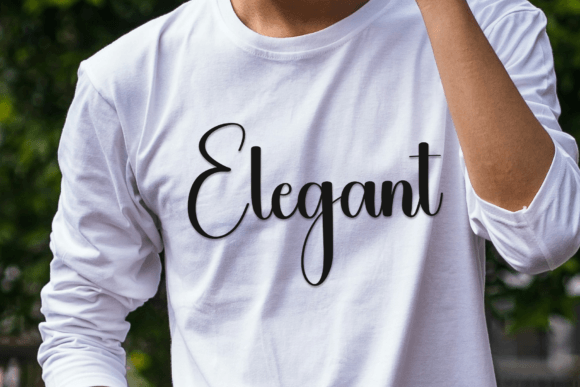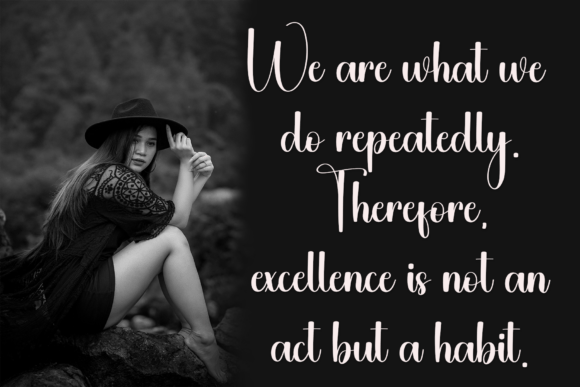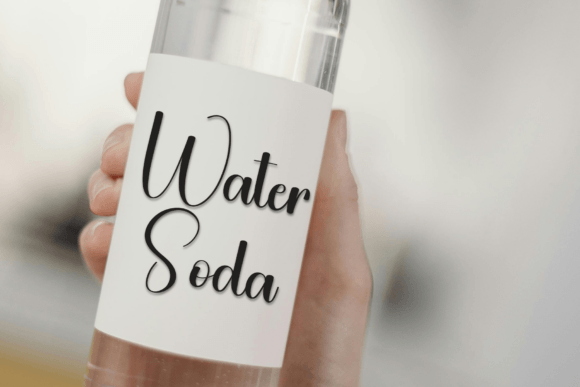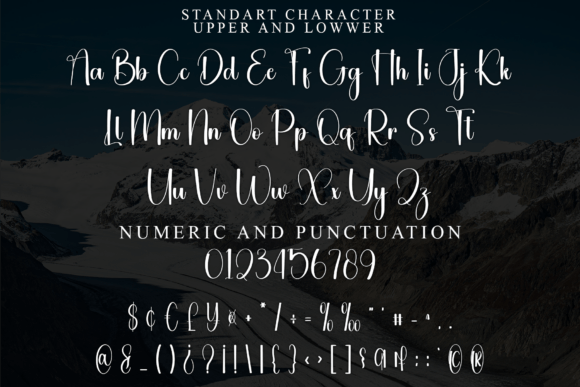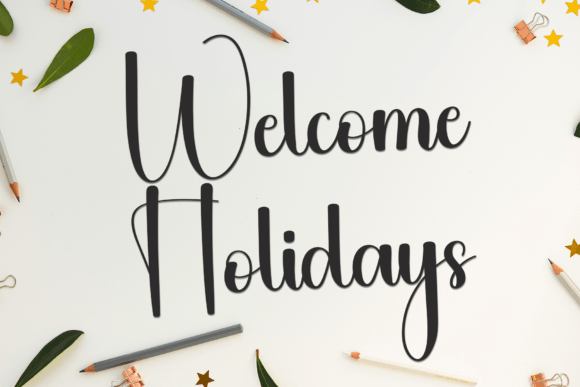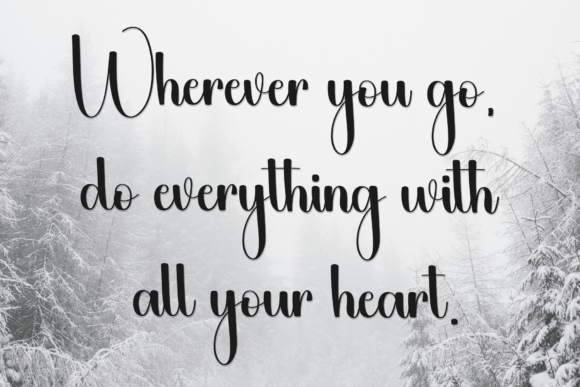
Introduction to December Dump Font
There’s nothing quite like the rush of creativity that comes with a blank canvas and a blank mind. As designers, we’ve all been there – staring at a screen, waiting for the perfect font to come along and bring our vision to life. And then, it happens. You stumble upon a font that’s so unique, so charming, that it instantly elevates your design from good to great. For many of us, that font is the December Dump Font.
With its lovely and timeless handwritten style, the December Dump Font is the perfect choice for creating eye-catching logos, branding, and quotes. Every letter has a unique and beautiful touch that will make your design come alive. Whether you’re working on a high-quality creative project or just need a reliable design resource, this font is sure to deliver.
- Designed with a unique aesthetic, featuring intricate details and elegant lines
Honest Review: December Dump Font
I recently stumbled upon the December Dump Font, and I must say, it’s been a game-changer for my design projects. As a designer, I’m always on the lookout for high-quality design resources that can elevate my work and save me time. The December Dump Font is one such resource.
Here’s what I love about it: ✨ It has a beautiful, modern aesthetic that’s perfect for creative projects. ✨ The font is available for free download, which is a huge plus for designers who are working on tight budgets. ✨ It comes with a transparent background, making it super easy to use in various design contexts.
- Modern, sleek design
Overall, I’m thoroughly impressed with the December Dump Font. It’s a high-quality, free design resource that’s perfect for personal or non-commercial projects. If you’re looking for a reliable font that’s easy to use, the December Dump Font is definitely worth checking out.
Tips for Getting the Most Out of December Dump Font
Use the December Dump Font on a transparent background to create a beautiful and elegant design. Experiment with different font sizes and styles to add depth and interest to your design. You can also pair the font with other high-quality design resources for a cohesive look.
The December Dump Font is perfect for creative projects such as holiday cards, invitations, and social media graphics. It’s also great for designing brochures, flyers, and other marketing materials. With its free download and high-quality design, the December Dump Font is a must-have resource for any designer.